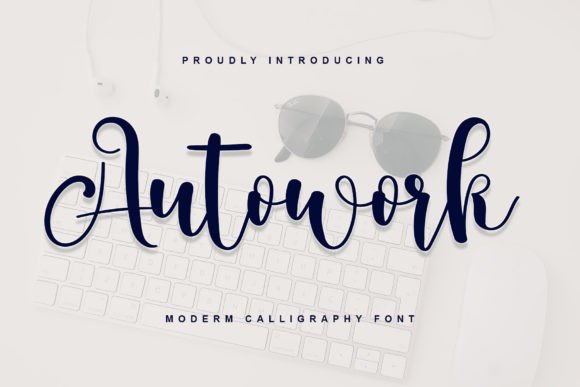
Prepare to be mesmerized by Autowork Font, a calligraphy script font that embodies elegance and charm. Created by the talented YanStudio, this font is a true masterpiece, designed to evoke a sense of romance and sophistication in every word it adorns.
Autowork Font is not just another font; it's an experience. Its characters pirouette and twirl along the baseline, creating a visual symphony that captivates the beholder. Each letterform is meticulously crafted, with delicate swashes and flourishes that add a touch of whimsy and playfulness. It's a font that dances off the page, inviting you to get lost in its beauty.
Imagine using Autowork Font to pen a heartfelt love letter, expressing your deepest emotions with a touch of grace and allure. Its curves and flourishes will embrace your words, transforming them into works of art that speak straight to the heart. Whether you're a professional designer or a creative enthusiast, Autowork Font is the perfect tool to add a touch of magic to your designs.
With Autowork Font, you can create breathtaking wedding invitations, enchanting logos, alluring social media posts, and captivating branding materials. Its versatility knows no bounds, making it suitable for a wide range of projects, from elegant invitations to playful posters.
Don't settle for ordinary fonts that blend into the background. Choose Autowork Font and let your designs shine with a brilliance that will leave a lasting impression. Immerse yourself in a world of beauty and elegance, where every word becomes a work of art.